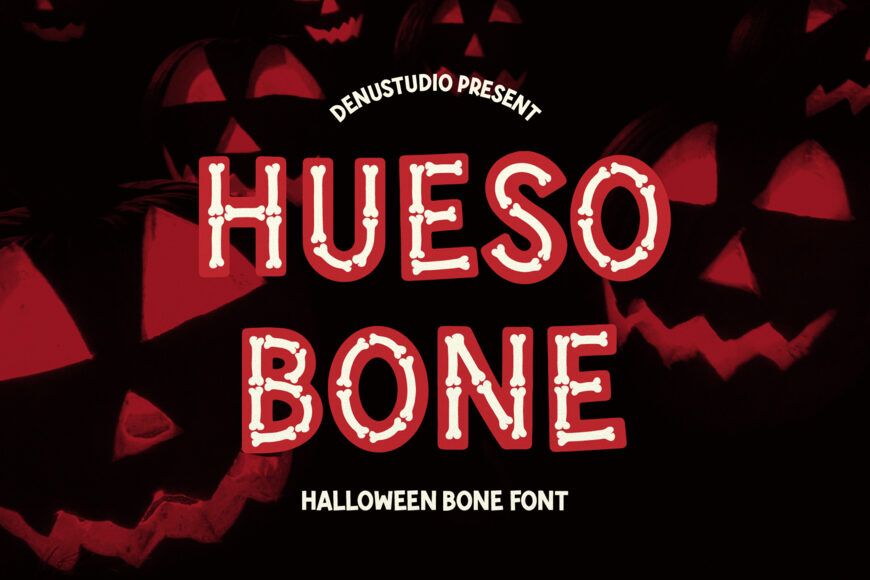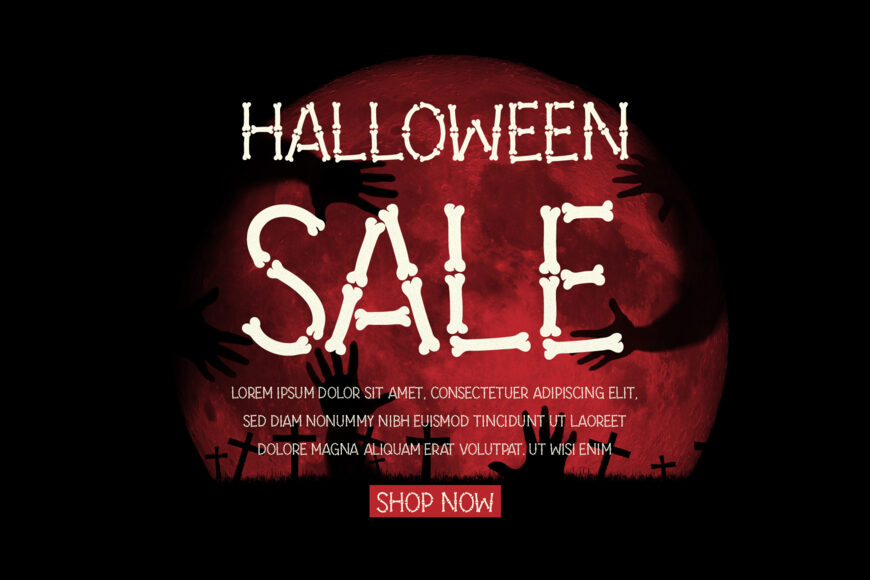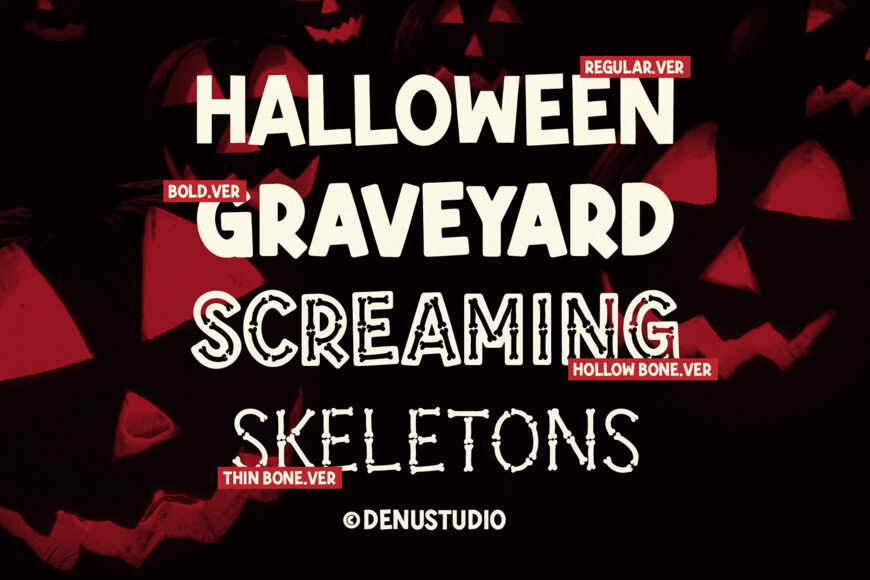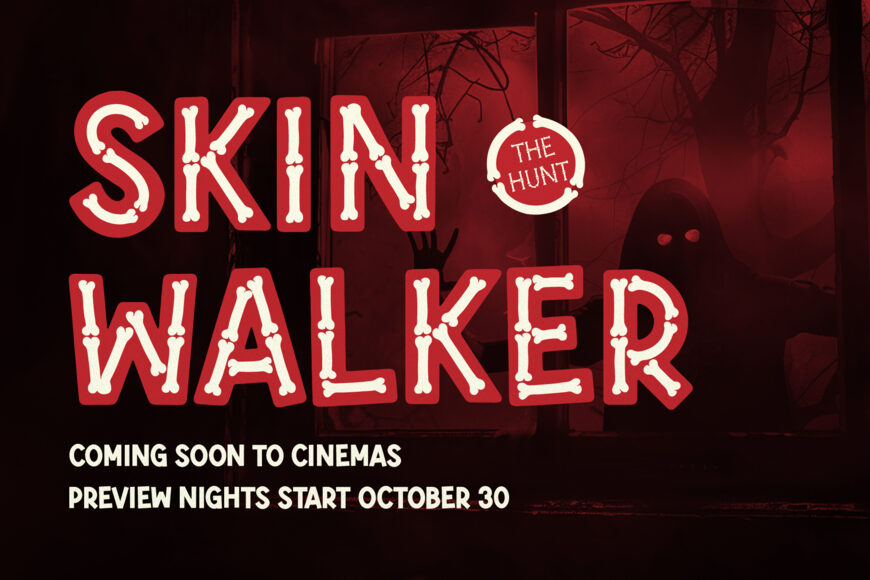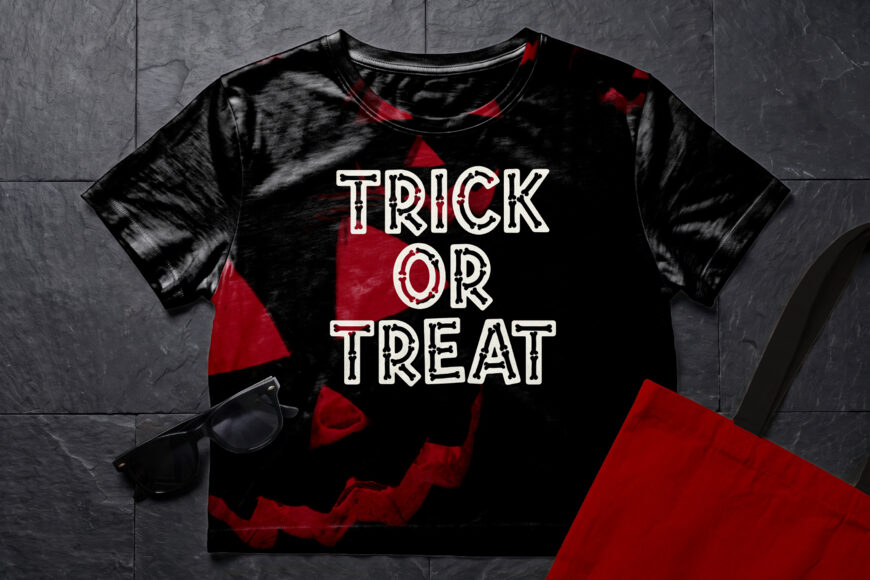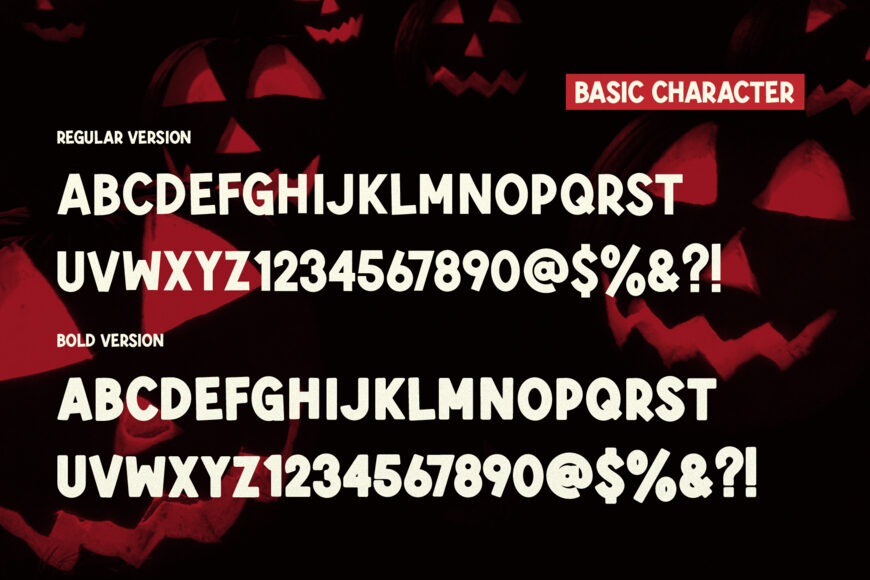
Unleash spooky skeleton fun, trick-or-treat thrills, and bone-chilling Halloween energy with Hueso Bone! This playful display font features letterforms intricately crafted from detailed white skeleton bones set against a bold, dark outline. Its spooky yet friendly aesthetic makes headlines pop with undeniable seasonal personality.
Ideal for Halloween party banners, trick-or-treat bags, skeleton apparel, horror movie posters, sticker sheets, candy wrappers, and custom Cricut or Silhouette craft SVG creations!